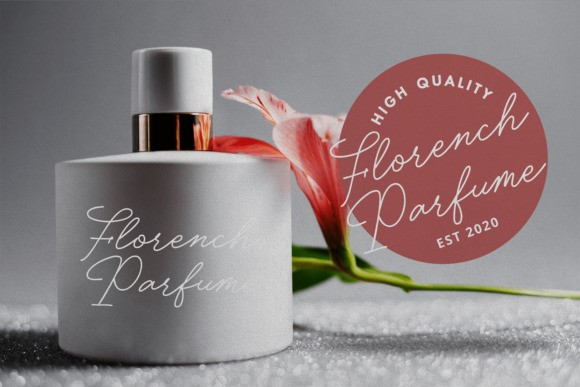
Abelia White Calligraphy Font
Abelia White is an elegant and modern handwritten font with an incredibly luxurious feel. Whether youíre looking for fonts for Instagram or calligraphy scripts for DIY projects, Abelia White will turn any creative idea into a true piece of art!